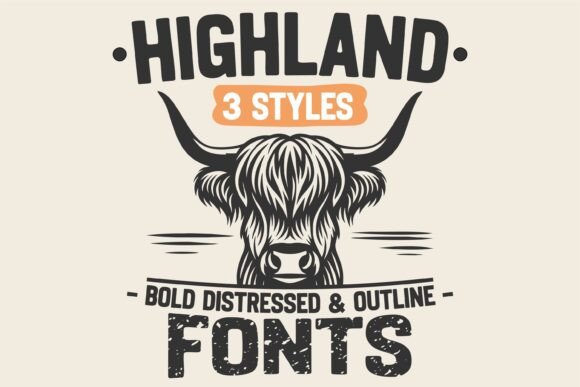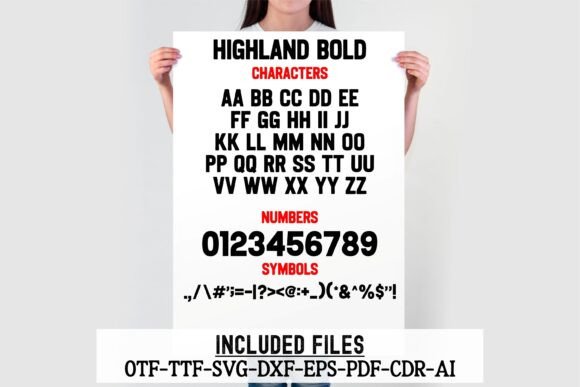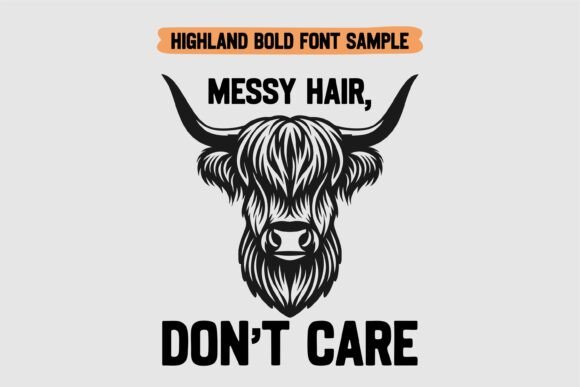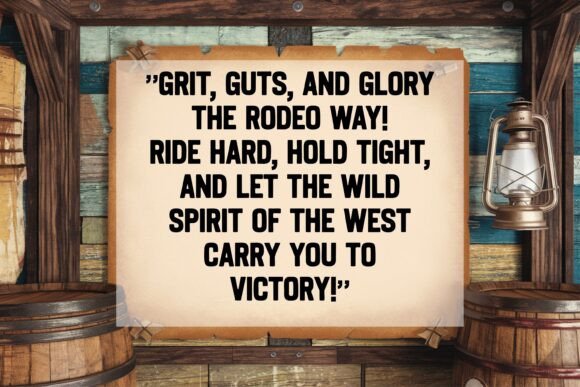
Highland Bundle Font
About the Highland Bundle Font
The Highland Bundle Font is here to transform your projects with its distinctive character and style. Introducing the Highland Font Bundle, a trio of robust typefaces carefully crafted for your rustic and vintage needs. These fonts – Highland Bold, Highland Grit, and Highland Outline – are perfectly suited for western themes, or to add that old-world charm to your farmhouse-inspired artwork. Use Highland Bold to make a strong, powerful statement. Leverage the aged, distressed aesthetics of Highland Grit to evoke a sense of nostalgia, or embrace the chic versatility of Highland Outline, apt for layering or engraving. This font collection is a must-have for Cricut, Silhouette, Procreate, sublimation, and digital design projects. It’s sure to create eye-catching text for t-shirts, logos, handmade crafts, and home decor.
Highland Bundle Font Usage Examples
Highland Bundle Font Example